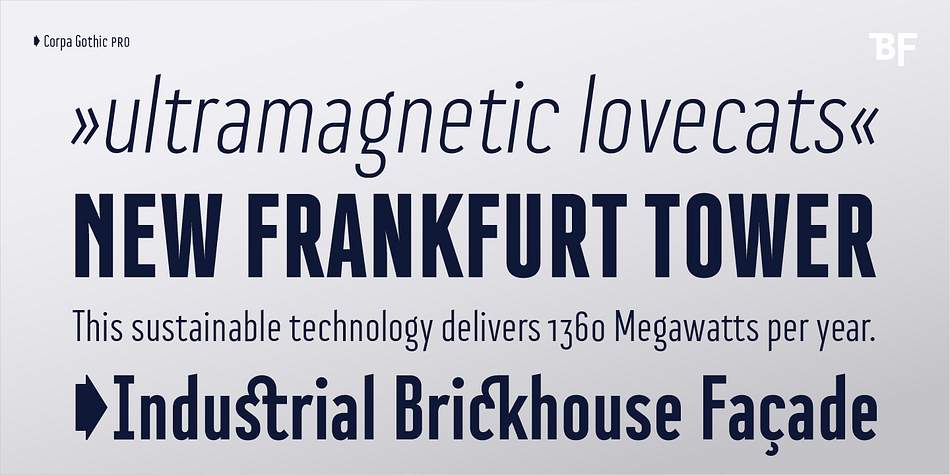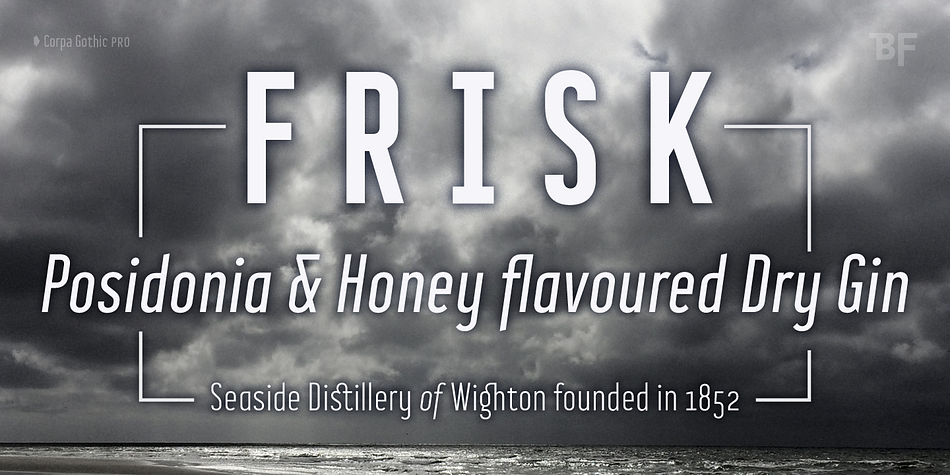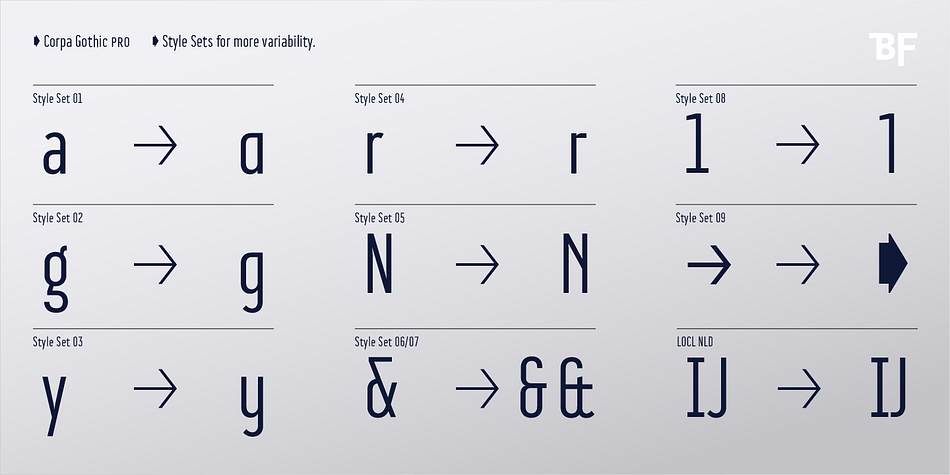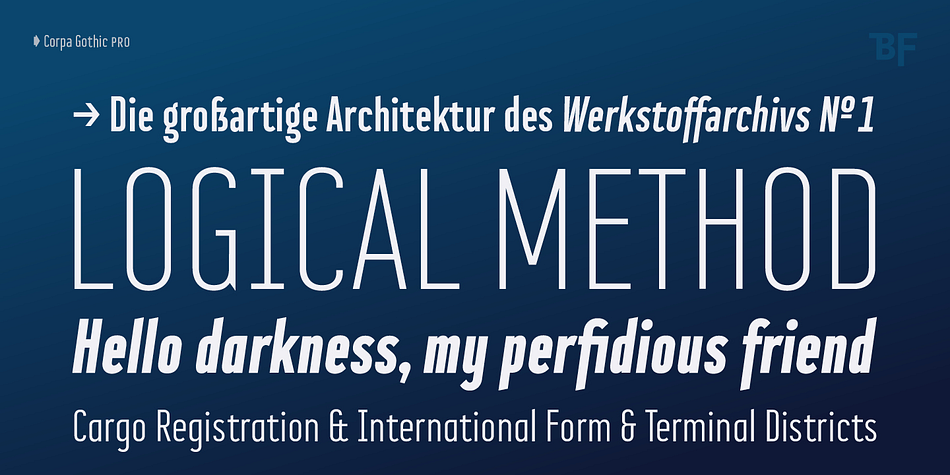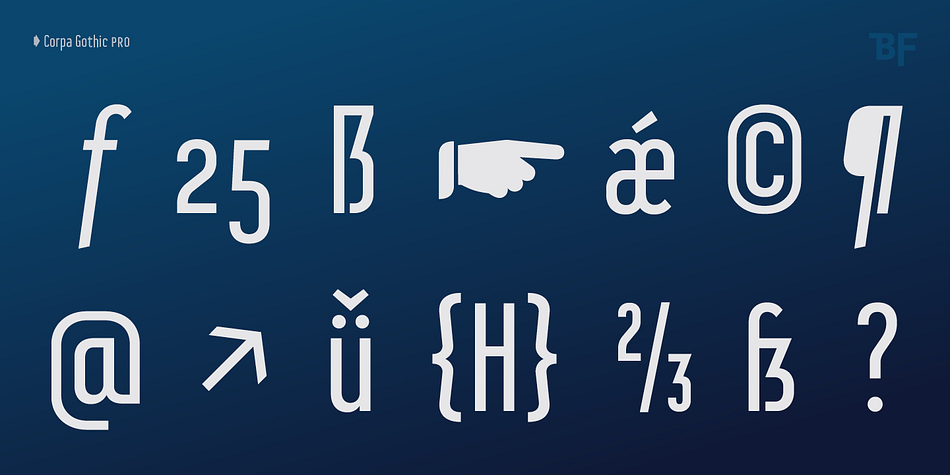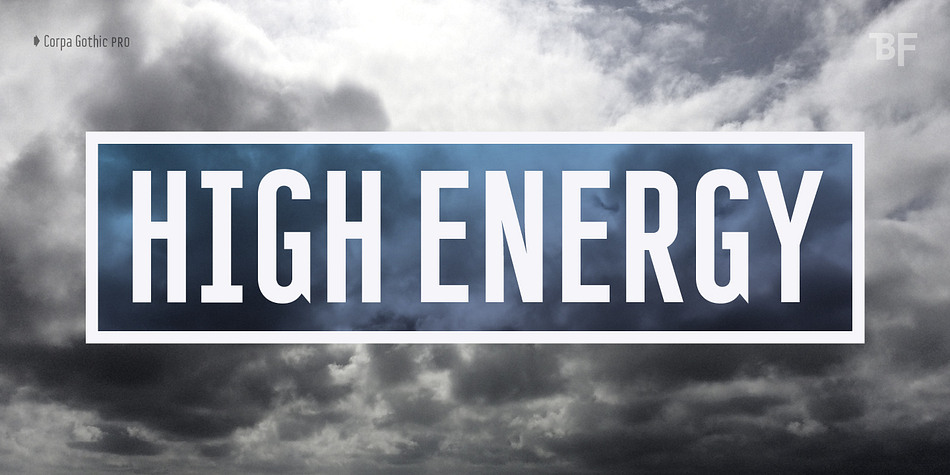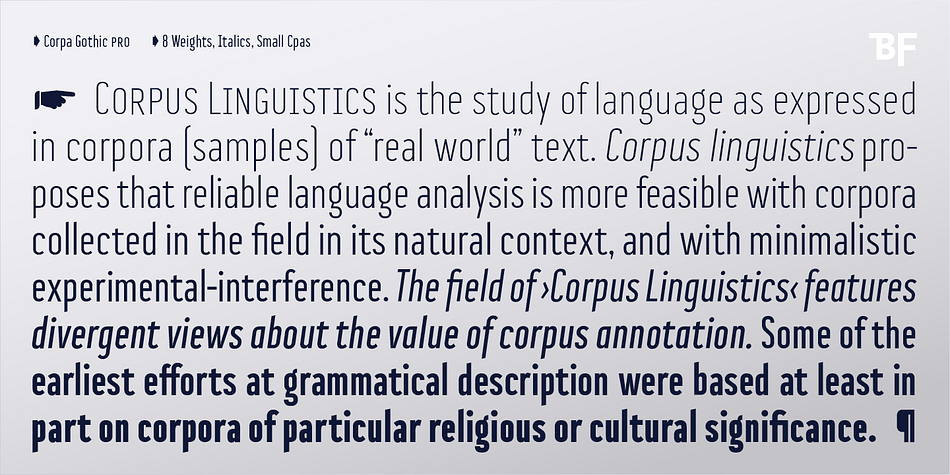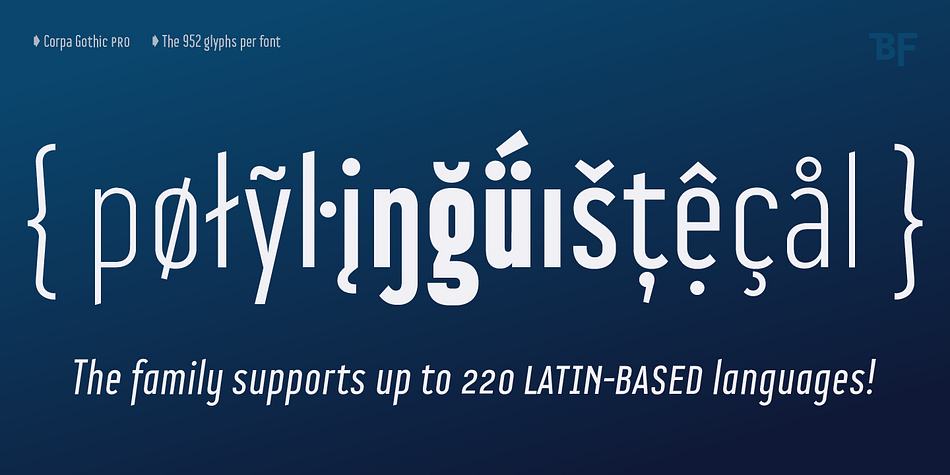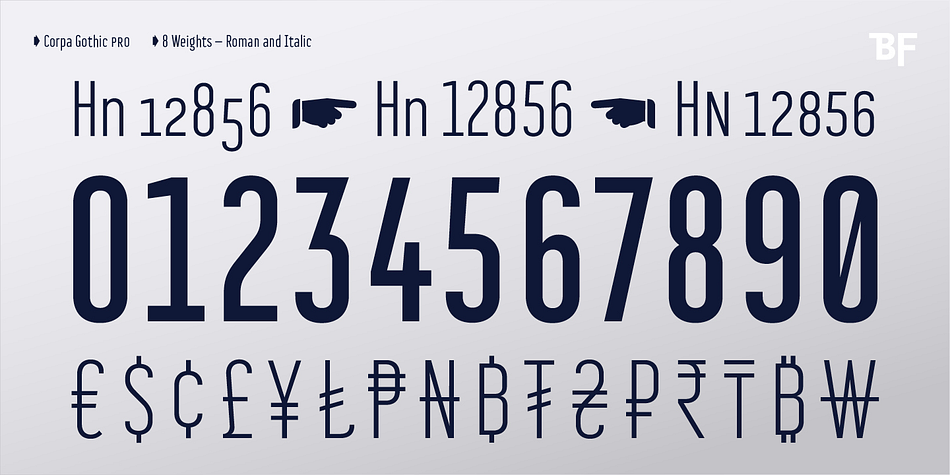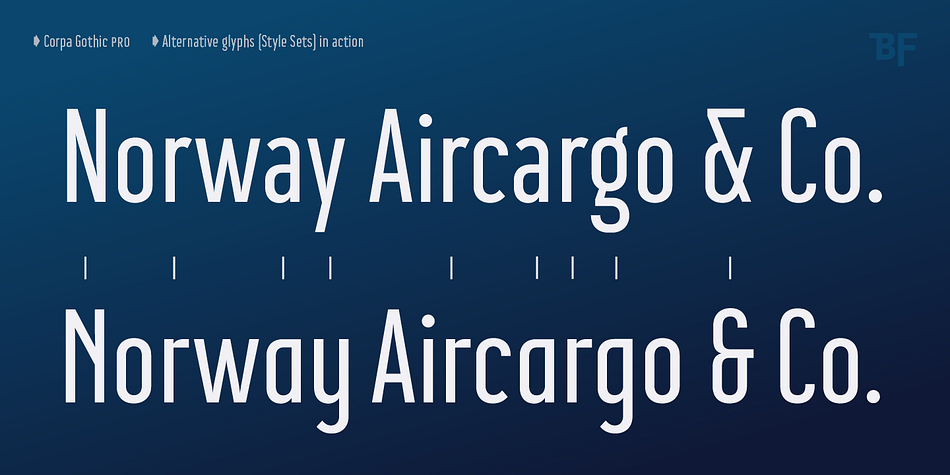
Designed by Guido Schneider, BF Corpa Gothic Pro is a sans serif font family. This typeface has sixteen styles and was published by BrassFonts.
BF Corpa Gothic™ Pro is a kind of “Neue”-Edition of the beloved typeface designed by Guido Schneider.
Inspired by hand-drawn geometric fonts from 1920s posters, this sans serif typeface is slightly condensed, and it appears compact and captivates with its expressive shapes and unique details, despite its pronounced Grotesque character.
With its rather constructed, technical – but also vivid – appearance, the BF Corpa Gothic™ Pro is not only suitable for headlines and display applications, but is also pleasant to read in short and middle length text.
The type family is engineered for exciting, professional but unusual designs.
It is equipped with OpenType Features like 4 figure sets (LF, TF, OSF, SC), nice ligatures, many currency symbols, fractions, alternates, special characters, arrows and symbols – and small caps.
9 style sets give you the option to individualize and adjust the typeface to the requirement of your design, without changing the general visual feeling. In this way you can also switch the simply slanted styled Italic into a “real Italic”.
Each of the 16 fonts (Upright and Italic) contains more than 940 glyphs and supports up to 220 Latin-based languages.